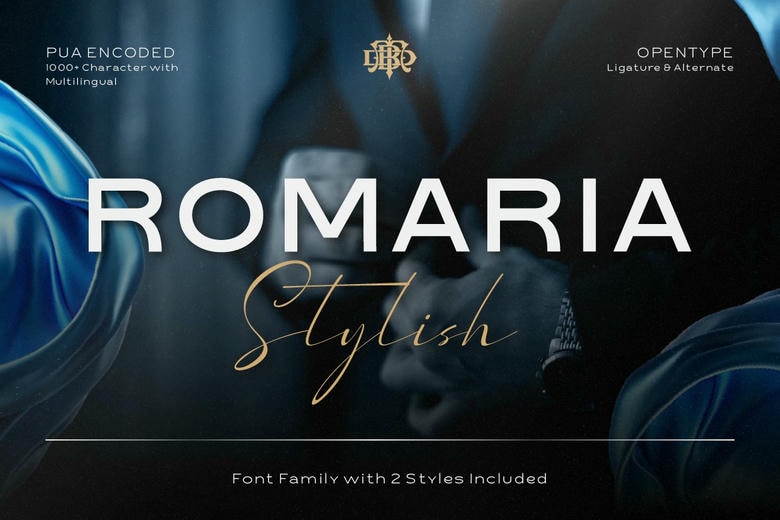
Romaria Stylish Font Duo
Romaria Stylish is a modern and classy typeface that conveys old-school sophistication in a clean, modern way. Crafted for designers who love clarity, balance and refined aesthetics, Romaria brings a quiet confidence to every design.
This font family is available in two different styles a smooth sans serif and a fancy script; where you can develop beautiful contrasting effect in one layout. They are a perfect match and are working together on luxury branding, editorial design, fashion projects, and premium product presentations.
Whether you’re looking to design a watch brand, perfume label, magazine layout or wedding stationery or a modern lifestyle branding, Romaria Stylish offers a polished and timeless aesthetic with an effortless elegance.